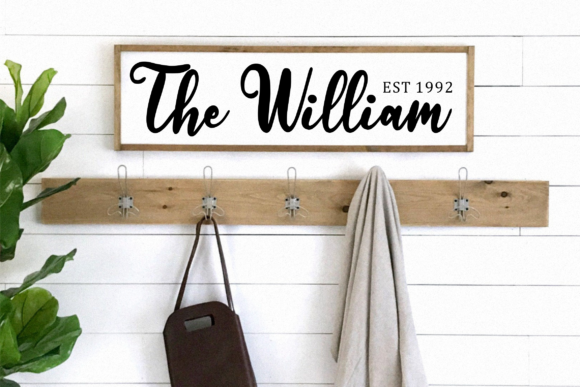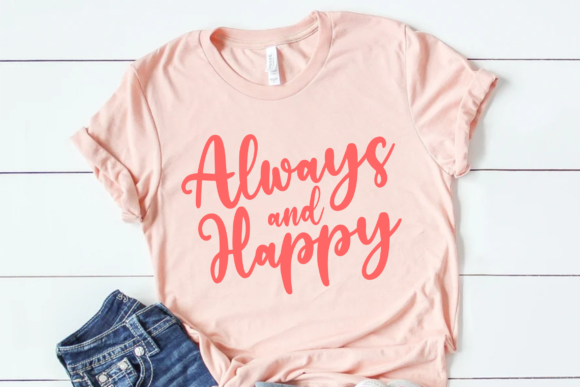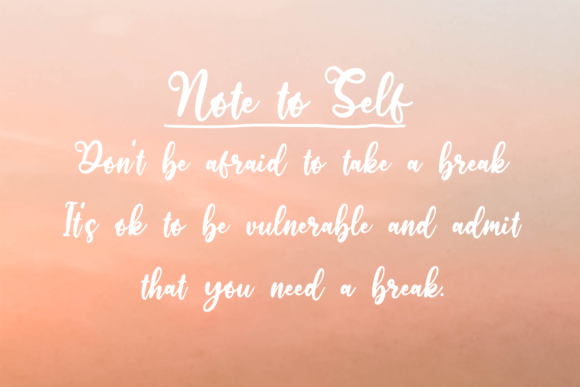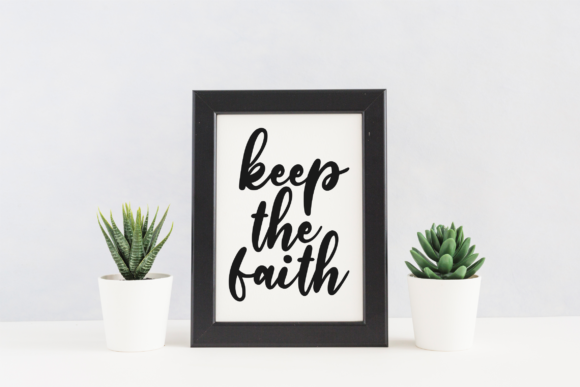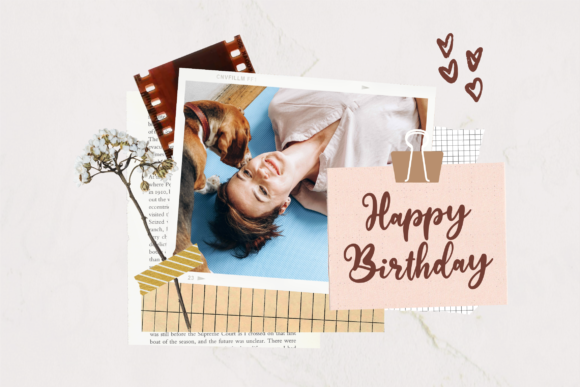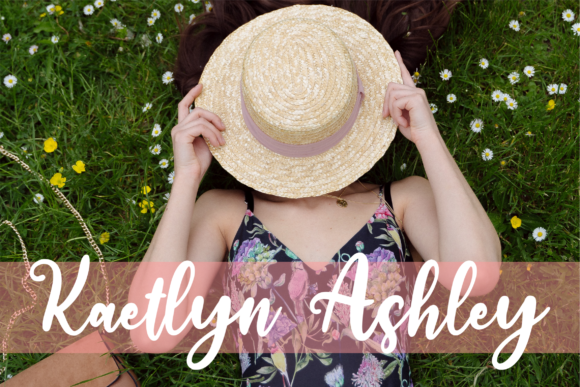
Introduction to Olipeach Font
Have you ever stared at a blank canvas, your mind racing with creative ideas, but struggling to find the perfect visual expression? That’s where the magic of a great font comes in – and today, we’re excited to introduce you to the delightful Olipeach Font!
This lovely script font is more than just a pretty face; it’s a design resource that can elevate your creative project to the next level. With its charming, playful characters that seem to dance along the baseline, the Olipeach Font is perfect for adding a touch of whimsy to your designs.
Key Features of Olipeach Font
- Unique, hand-drawn design that adds a personal touch to any project, setting it apart from generic fonts.
- Suitable for a wide range of creative projects, including logos, typography, and branding materials.
Honest Review: Olipeach Font
I recently came across the Olipeach Font, and I was excited to dive in and see what it had to offer as a design resource. As a designer, I appreciate high quality fonts that can elevate my creative project.
The Olipeach Font is a beautiful script font with a transparent background, making it perfect for backgrounds, quotes, and other design elements. It’s also available for free download, which is always a bonus!
- ✨ Beautiful script font style
- ✨ High quality design
- ✨ Transparent background for versatility
- ⚠️ Limited character set (no numbers or punctuation)
- ⚠️ Not ideal for body text (too decorative)
Overall, I’m impressed with the Olipeach Font. It’s a great addition to any design library, and it’s perfect for adding a touch of elegance to your creative project. With its high quality design and transparent background, it’s a must-have for any designer looking for a beautiful script font.
To get the most out of the Olipeach Font, experiment with different font sizes and styles. Combine it with other design elements to create visually appealing designs. Use the font’s transparent background to create layered designs and add depth to your creative project.
The Olipeach Font is ideal for a variety of creative projects, including blog posts, social media graphics, and marketing materials. Its high-quality features and transparent background make it a versatile design resource for any project.